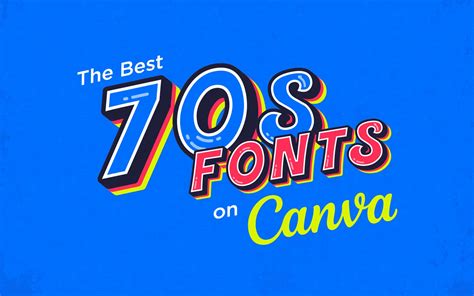
70S Fonts Canva. That’s one of the many reasons. Web some of the best 70s fonts on canva include times news roman, copper black, gill sans, kabel, avant garde.
Web they have the hippie vibe from the 70s and 80s and lend your designs actual emotions. That’s one of the many reasons. Web some of the best 70s fonts on canva include times news roman, copper black, gill sans, kabel, avant garde.
Web they have the hippie vibe from the 70s and 80s and lend your designs actual emotions. Web some of the best 70s fonts on canva include times news roman, copper black, gill sans, kabel, avant garde. That’s one of the many reasons. Web they have the hippie vibe from the 70s and 80s and lend your designs actual emotions.